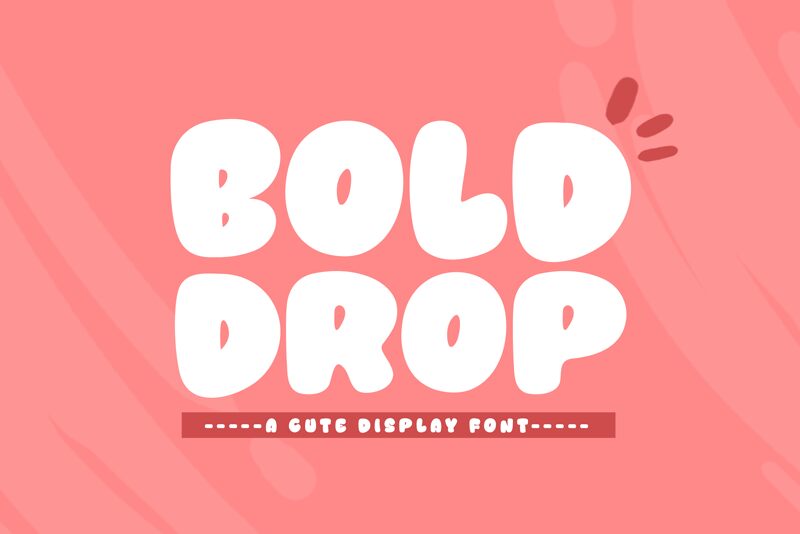
Bold Drop
Bold Drop font by Khurasan is a bold cartoon font whose rounded edges and voluminous characters are the main design elements. The powerful retro-inspired typeface inherits a cooperative yet distinctive appearance where every character is noticeably strong, expressive, and impactful. Its friendly components make it appealing for all surroundings that will definitely draw attention to themselves.